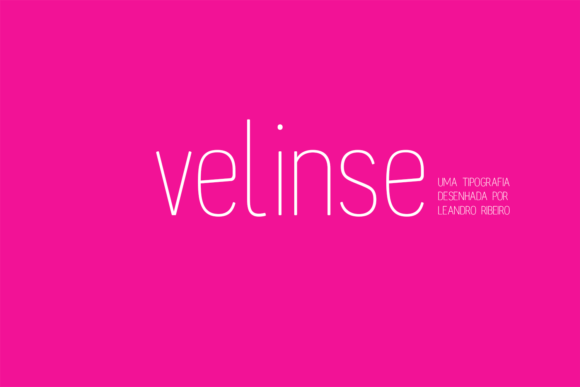
Introducing Velinse: The Timeless Sans Serif with Endless Possibilities for Minimalist Web Design
Prepare to unveil a groundbreaking realm of digital aesthetics with Velinse, an exquisitely elegant sans serif typeface that is poised to revolutionize your minimalist website designs. Step into the spotlight as you discover the vast potential hidden within Velinse’s intricate letterforms, crafted with meticulous precision to dissolve seamlessly into contemporary design trends, transforming the ordinary into the extraordinary. Its timeless beauty will have you wondering why you hesitated to use it sooner!
Whether you're a seasoned designer or just starting out, Velinse is the ultimate creative companion, offering you unparalleled versatility in expressing your unique vision. The minimalist framework of this font empowers you to experiment with simplicity while creating visually impactful designs that leave a lasting impression. Allow your web designs to transcend boundaries with Velinse's inherent ability to adapt to any topic or style, ensuring that your message is delivered with clarity and sophistication.
Let Velinse ignite your creativity and watch as your web designs blossom with elegance. From captivating headlines that demand attention to graceful body text that exudes professionalism, Velinse is the font that elevates every element of your website to remarkable heights. With its sleek and contemporary feel, your audience will be captivated from the very first click, compelled to engage with your content with an unwavering sense of excitement.
So, why settle for ordinary when you can embrace the boundless potential of Velinse? Make the switch today and experience the transformation it brings to your website's visual appeal. Velinse is more than just a font; it's a gateway into a world of limitless creativity, where every design decision is infused with beauty and sophistication.
Welcome to the future of minimalist website design with Velinse, where every click carries the promise of success.